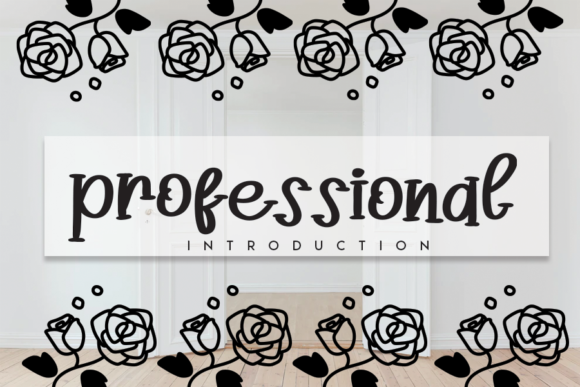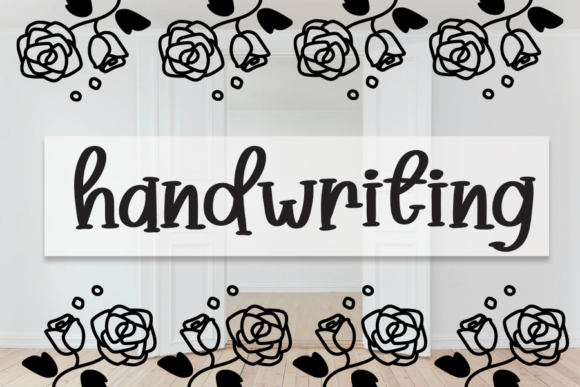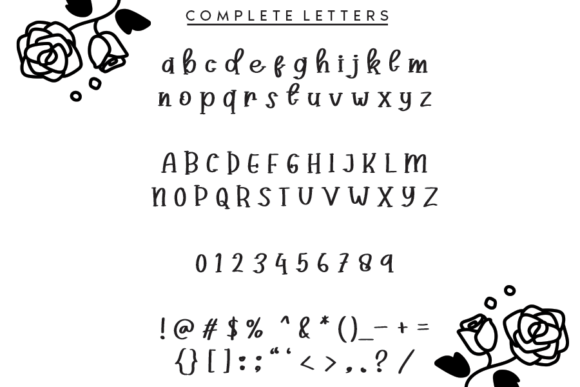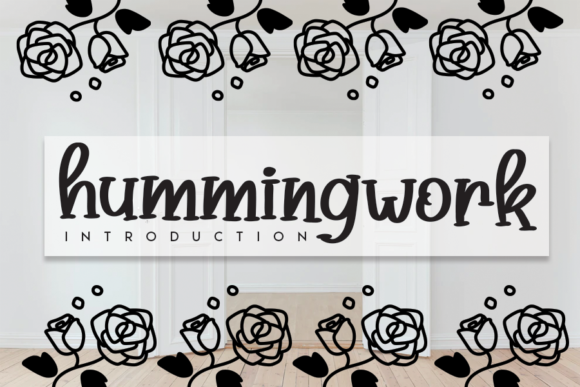
Introduction to Hummingwork Font
Hummingwork is a simple and neat lettered handwritten font.
It fits both formal and non-formal designs, so add it to your most creative ideas and notice how this font makes them stand out .
Key Features of Hummingwork Font